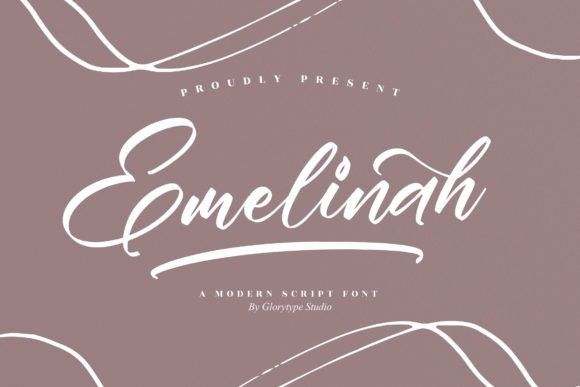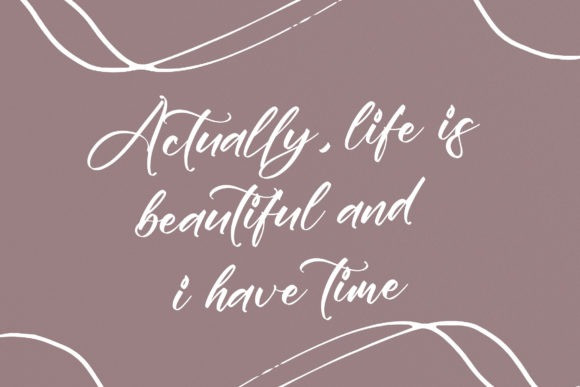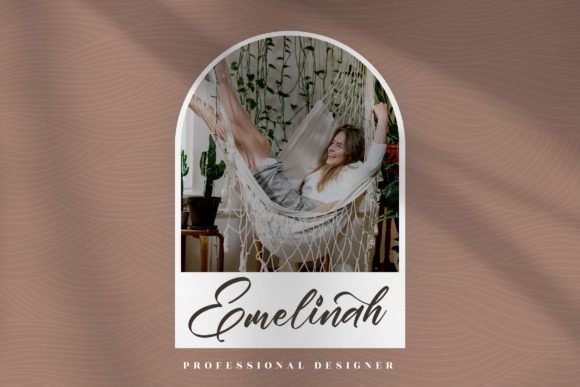
Emelinah Font
Emelinah is a lovely, elegant and unique script font. Add this romantic looking font to each of your love letters, wedding invitations or favorite design ideas, and you will be astounded by the outcome. Emelinah is PUA encoded which means you can access all of the glyphs and swashes with ease!